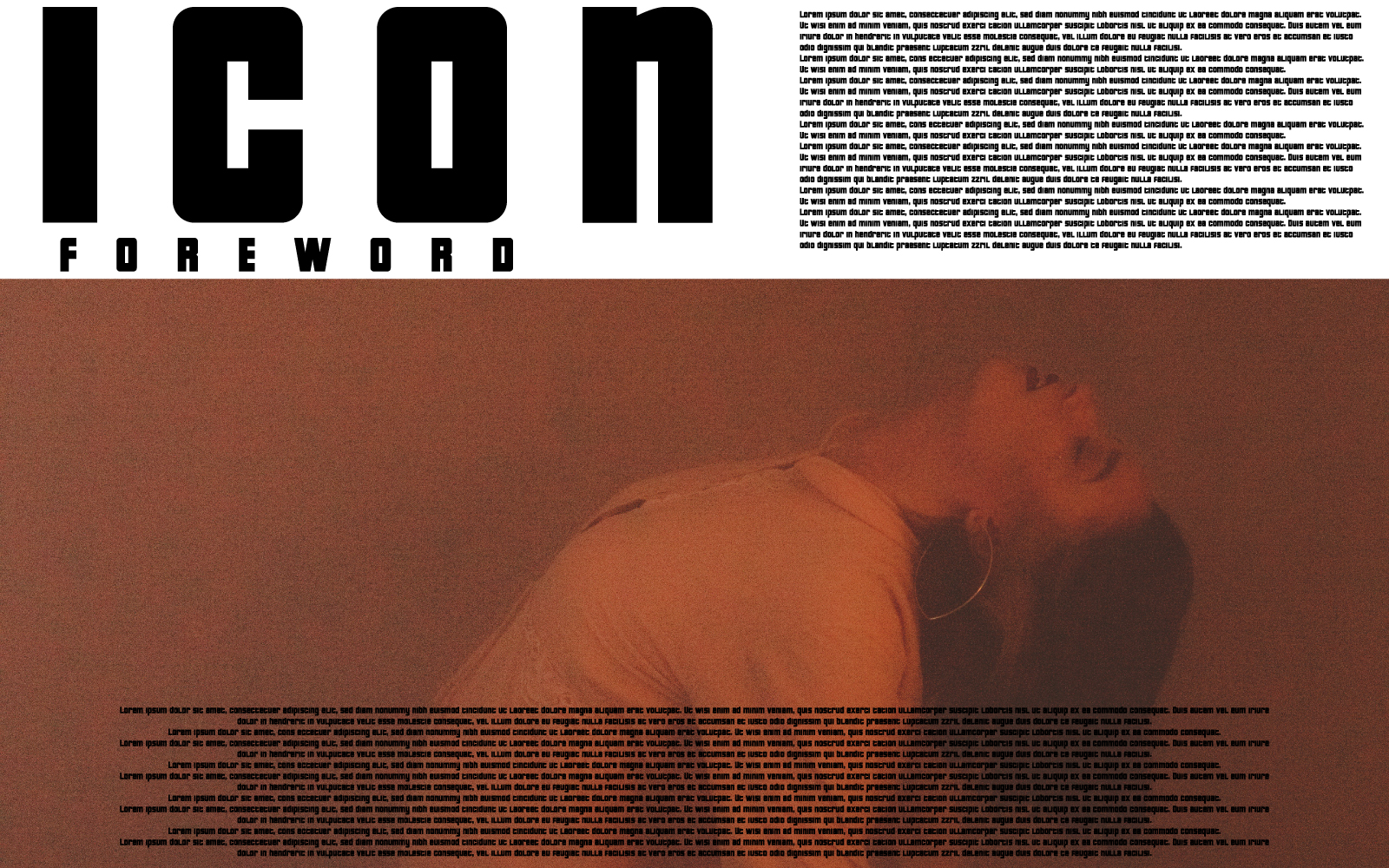
Ringstun - Bold Sans Serif Font
Introducing **Ringstun**, a modern and bold sans serif font.
So perfect for you who needs a typeface for logo designs, magazine, social media, brochure, and many more.
**Features**
+ Uppercase
+ Lowercase
+ Numerals
+ Punctuation